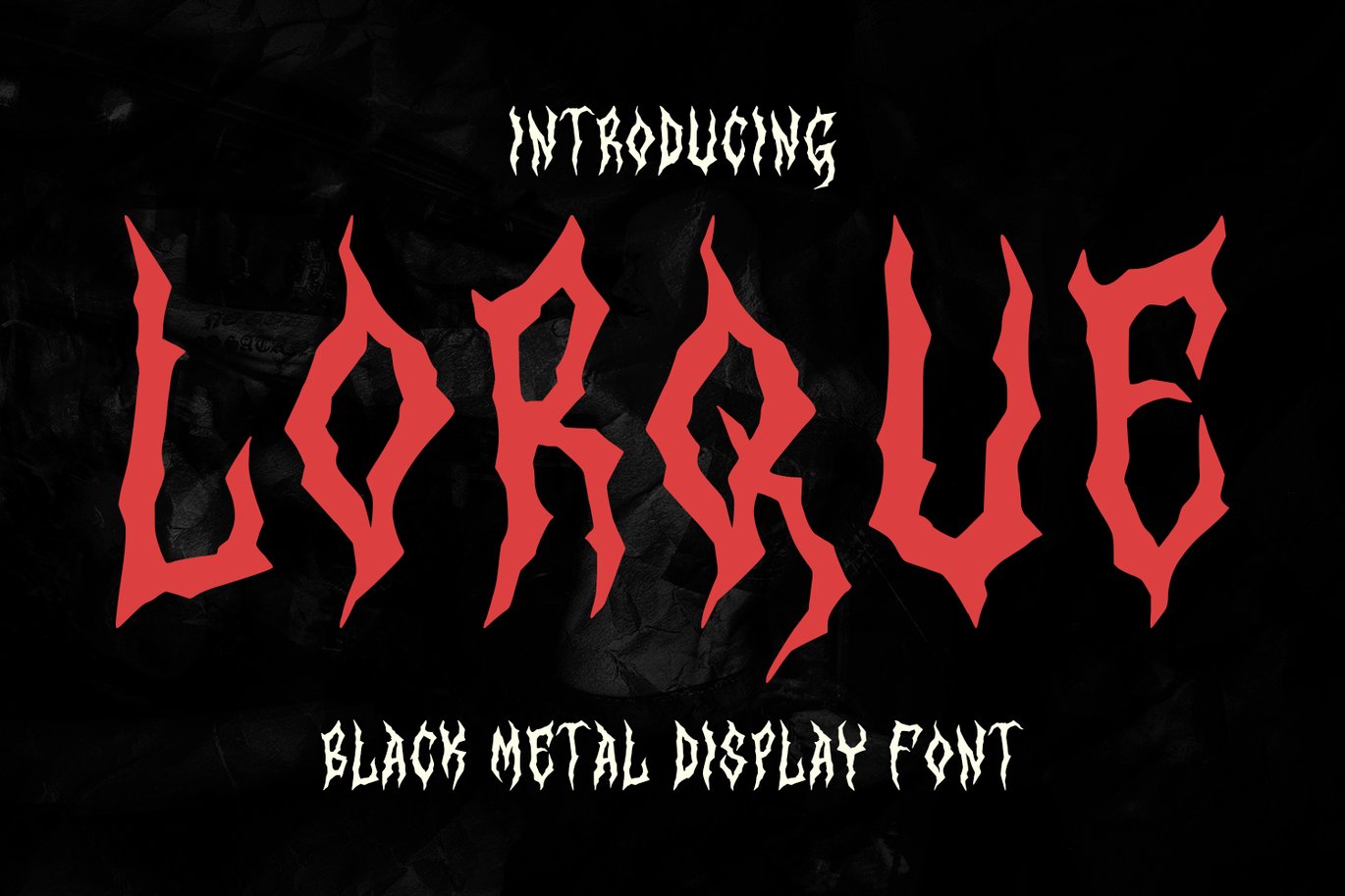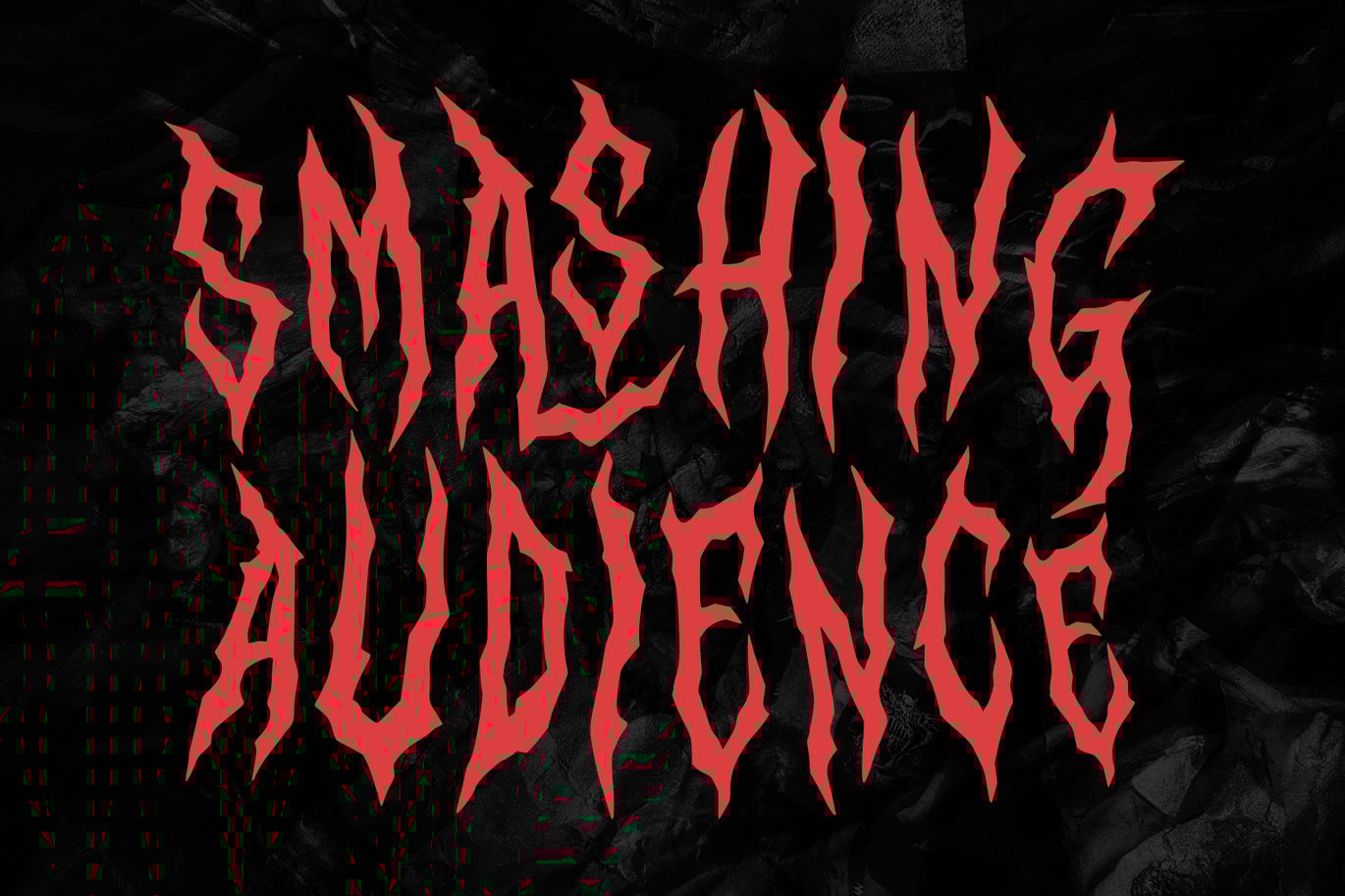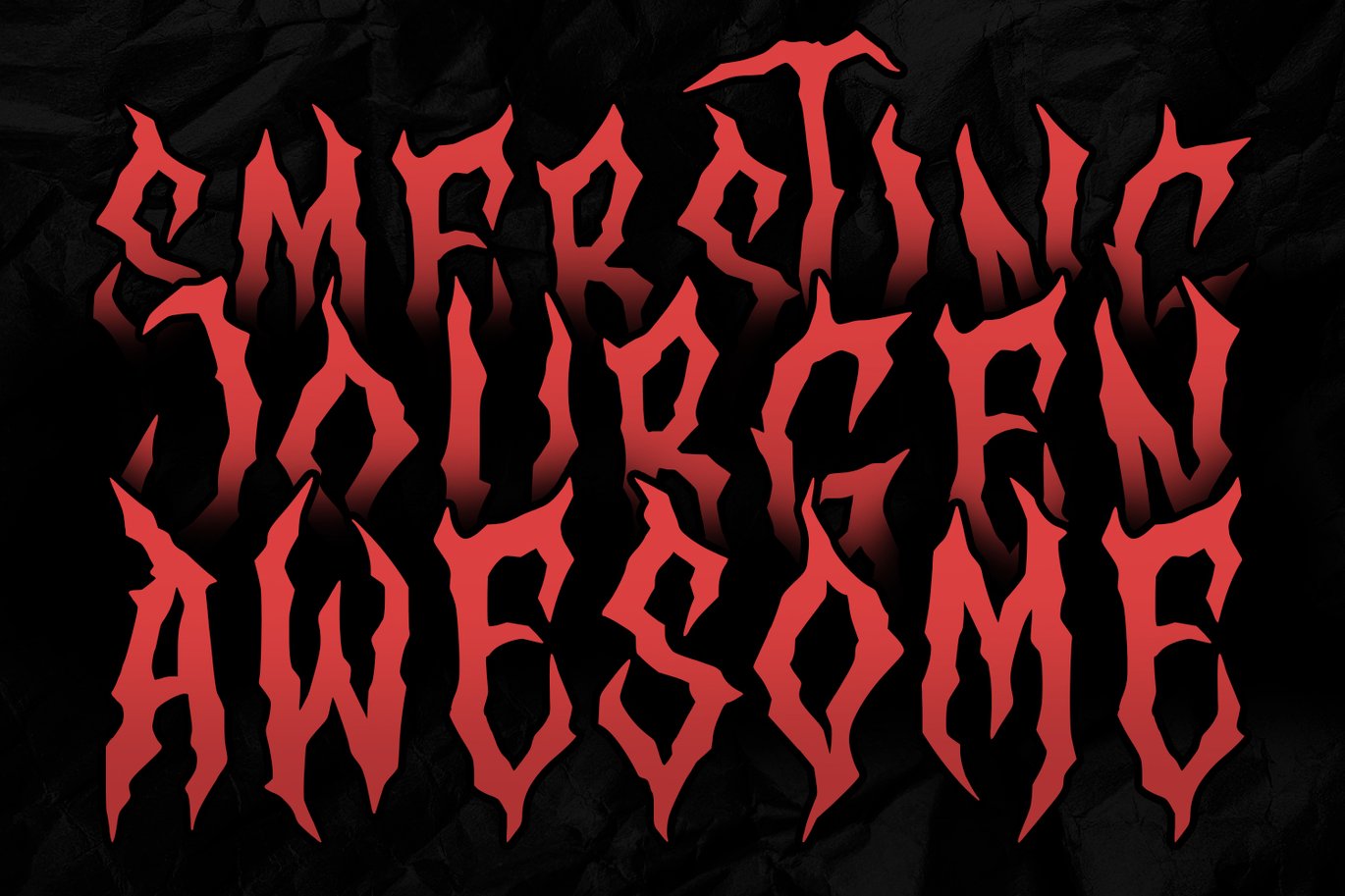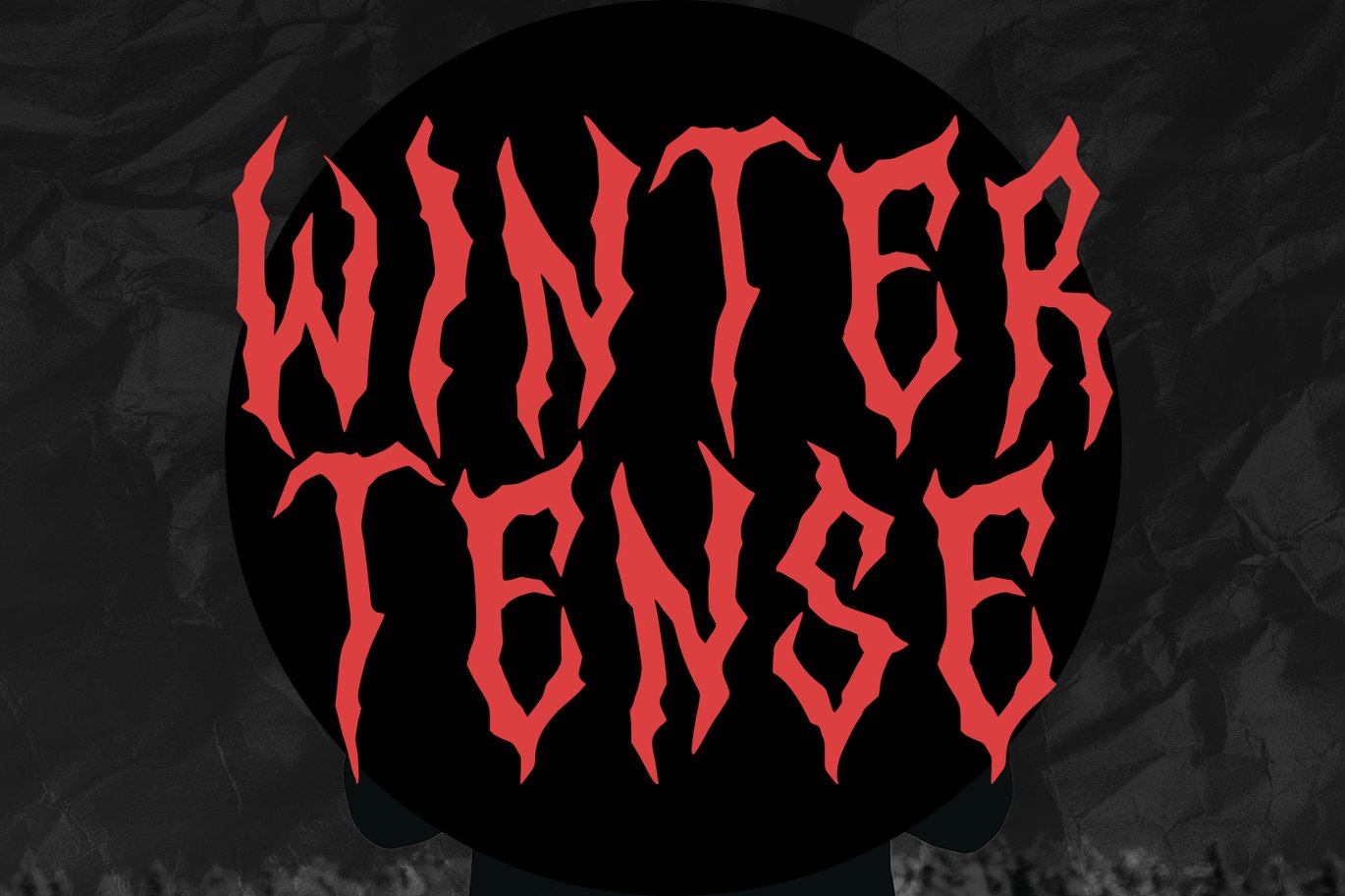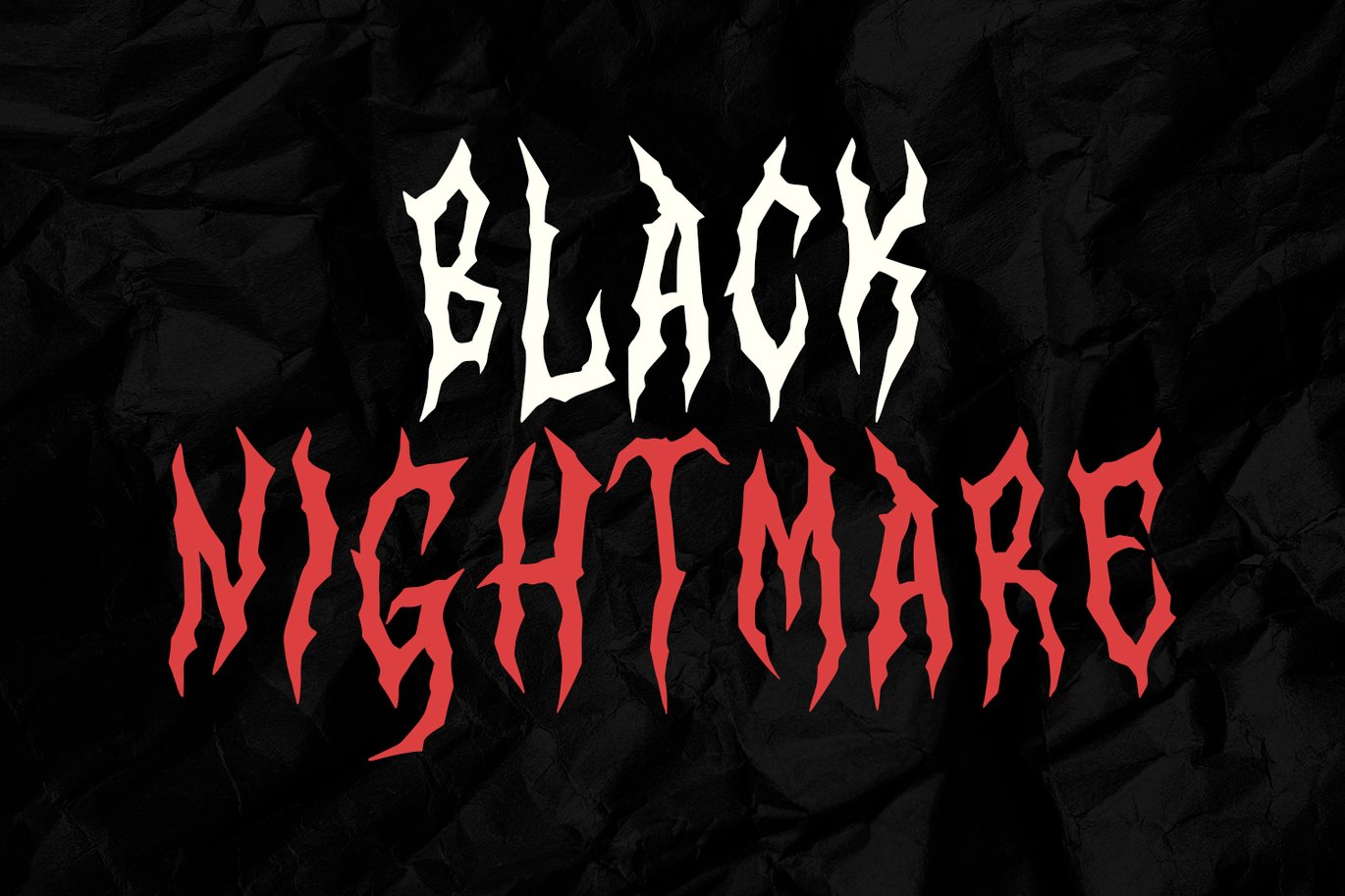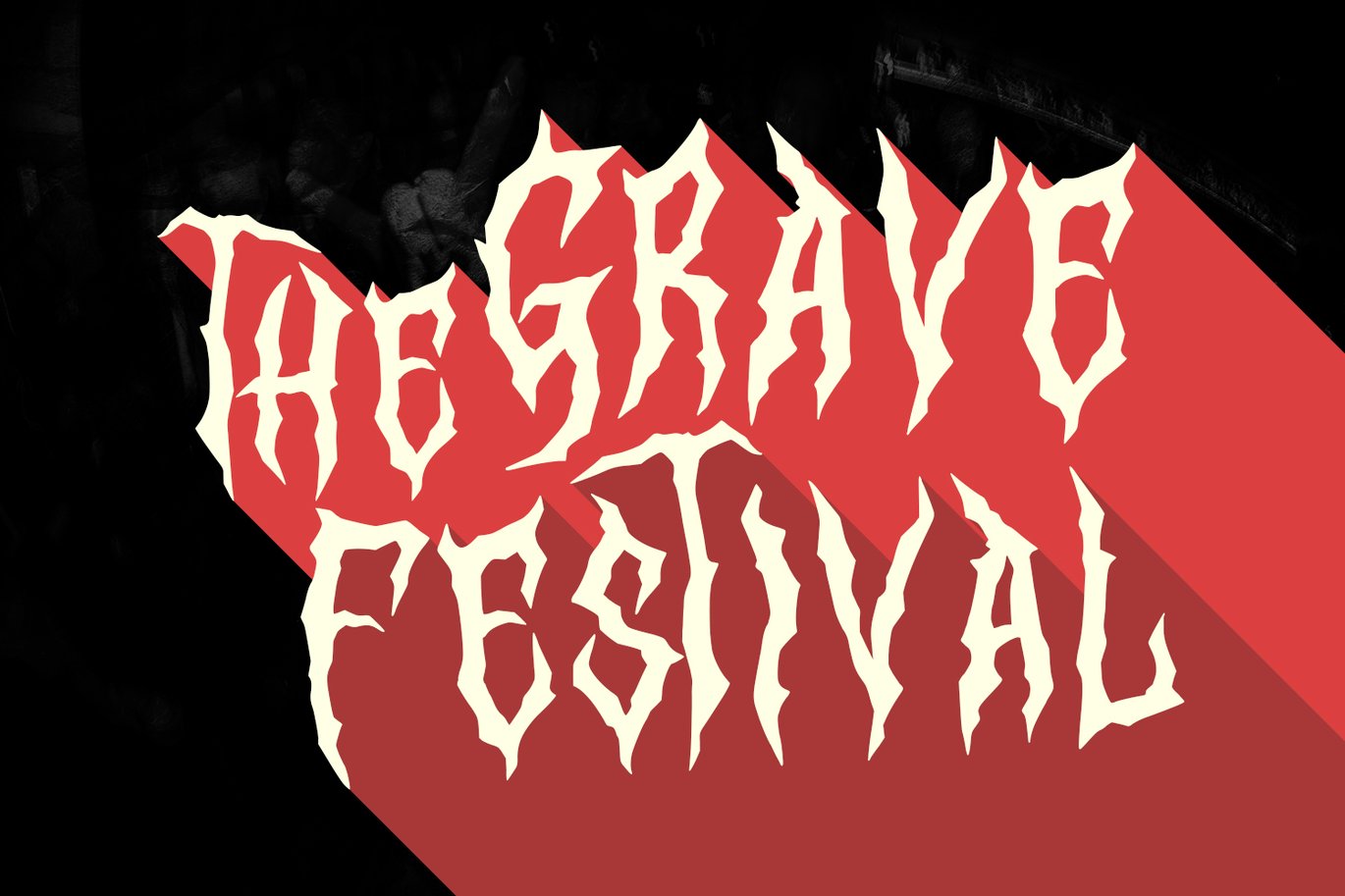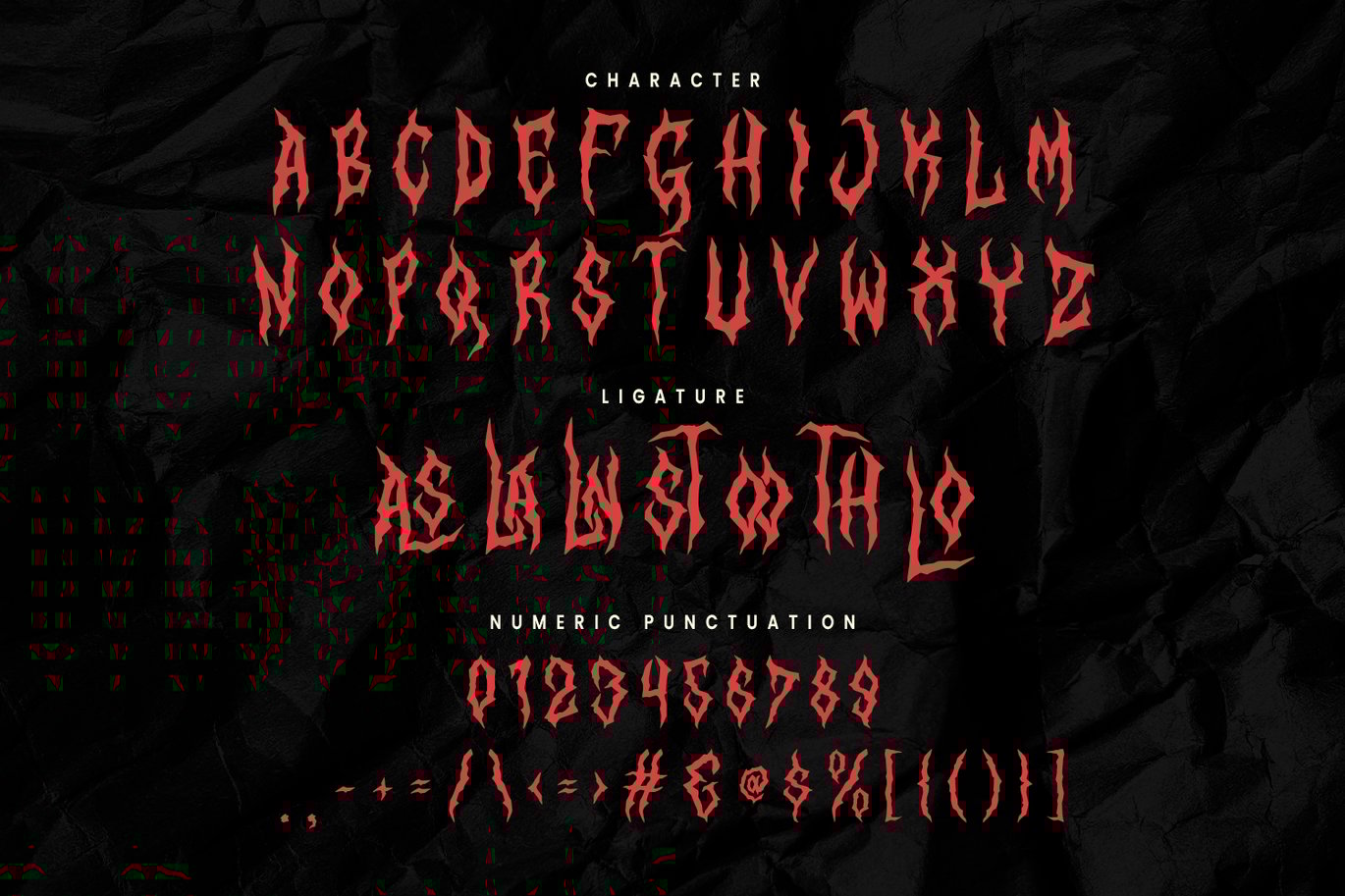
Lorque Black Metal Display Font
Give your designs an authentic brush handcrafted feel. “Lorque Black Metal Display Font” is perfectly suited to stationery, logo, typography quotes, magazine or book cover, website header, flyer, clothing, branding, packaging design, music event, black metal event and more.